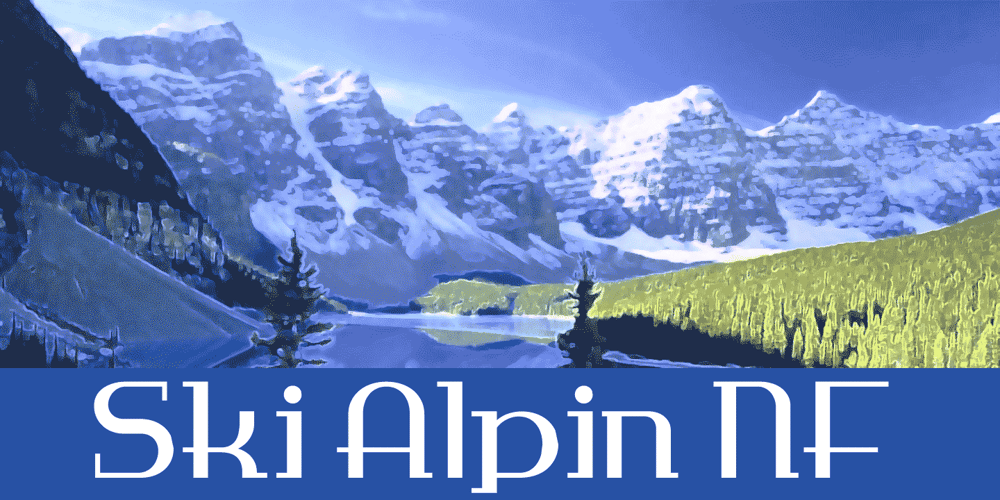
Ski Alpin NF
Ski Alpin NF Font Family was designed by published by Nick’s Fonts. Ski Alpin NF contains 1 styles and family package options. A Swiss travel poster from 1927 offered the pattern for this idiosyncratic Art Deco face. Use it and add a little personality and charm to your next project. Both versions of this font support the Latin 1262, Central European 1250, Turkish 1254 and Baltic 1257 codepages.